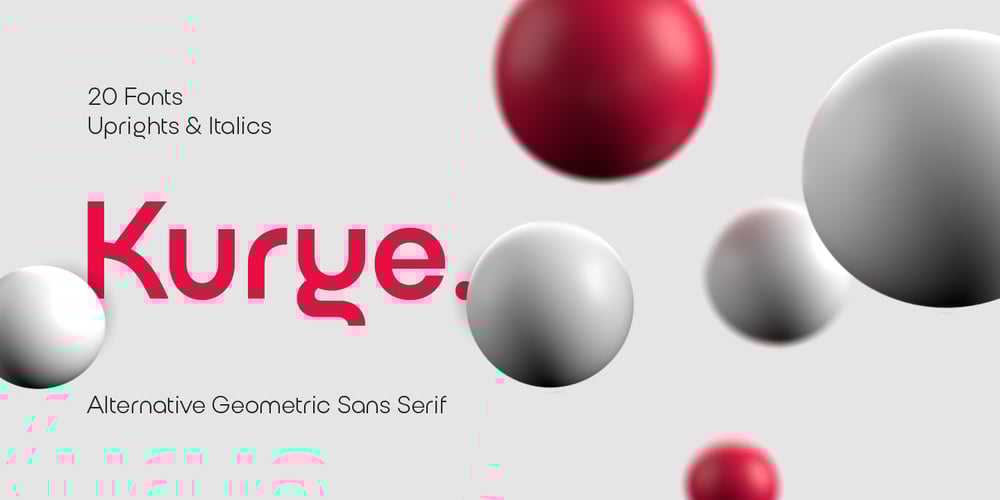
Kurye Font Family was designed by Serdar Öztürk and published by Serdar Ozturk. Kurye contains 20 styles and family package options. Kurye, is an extremely elegant and emotional font. You can choose its large family for your magazine, brochure, catalog designs, furniture and architectural presentations. In this way, you can add a more aesthetic and unique atmosphere to your designs.Kurye, ligatures, alternative glpyhs and multilingual support.